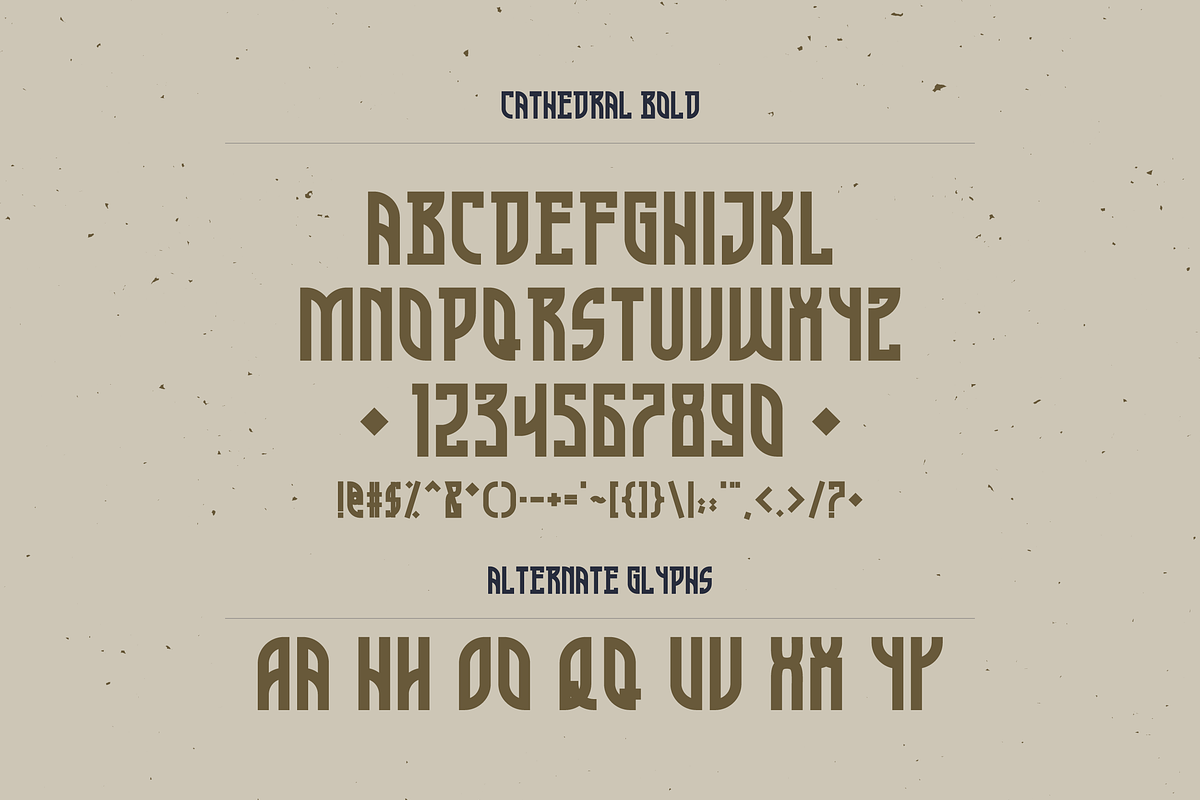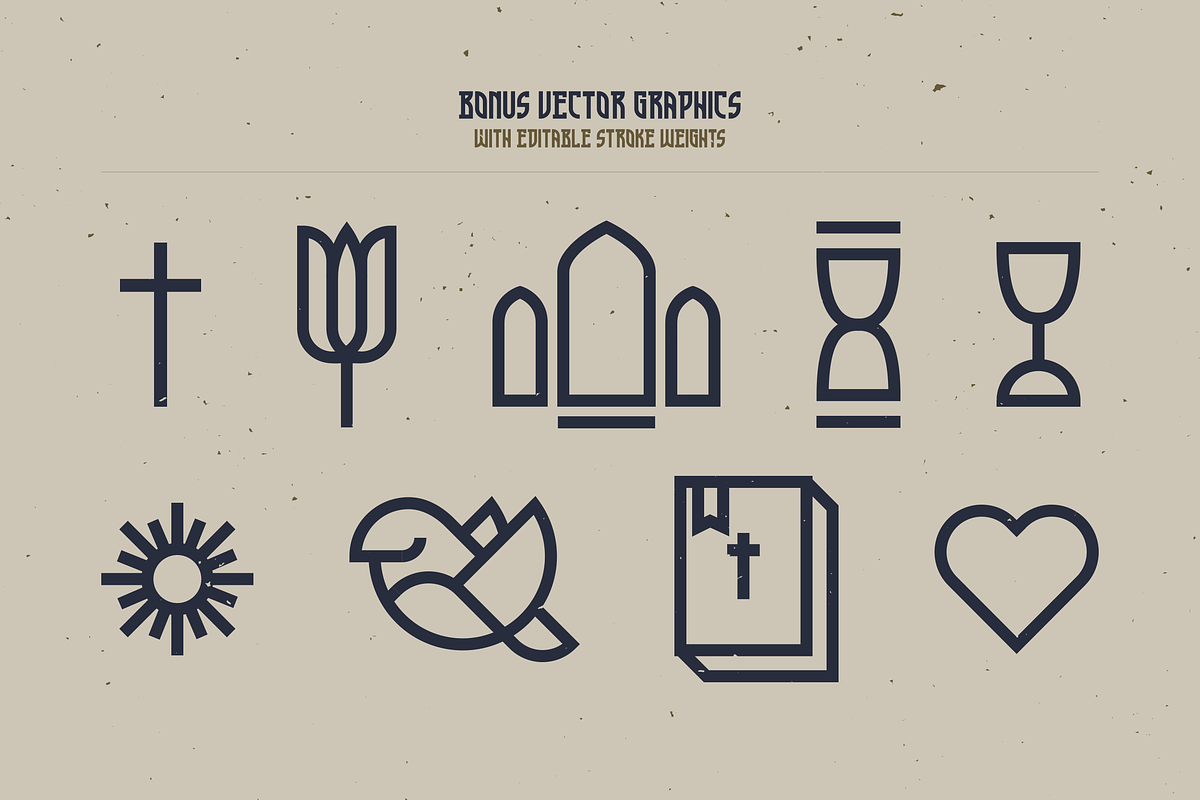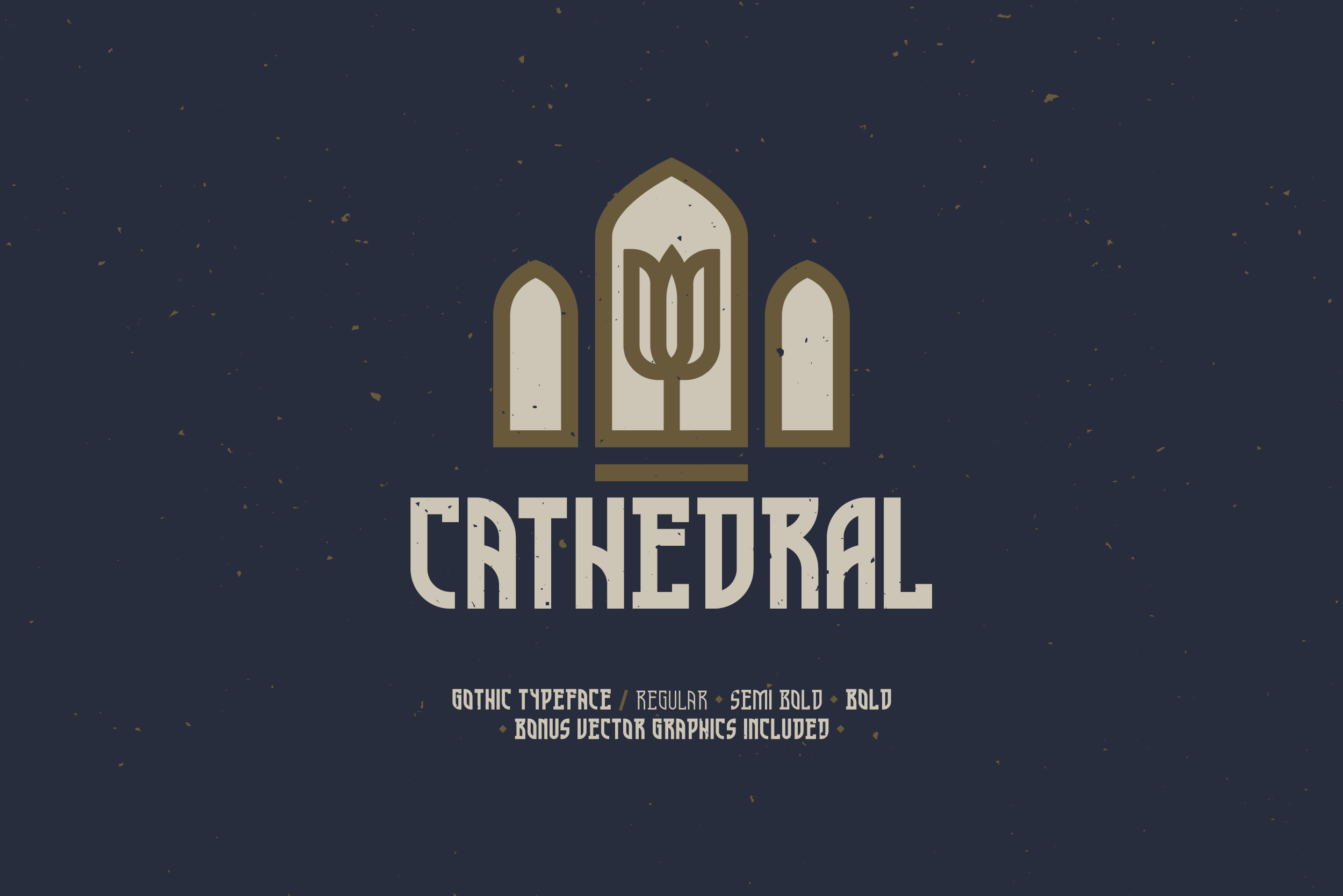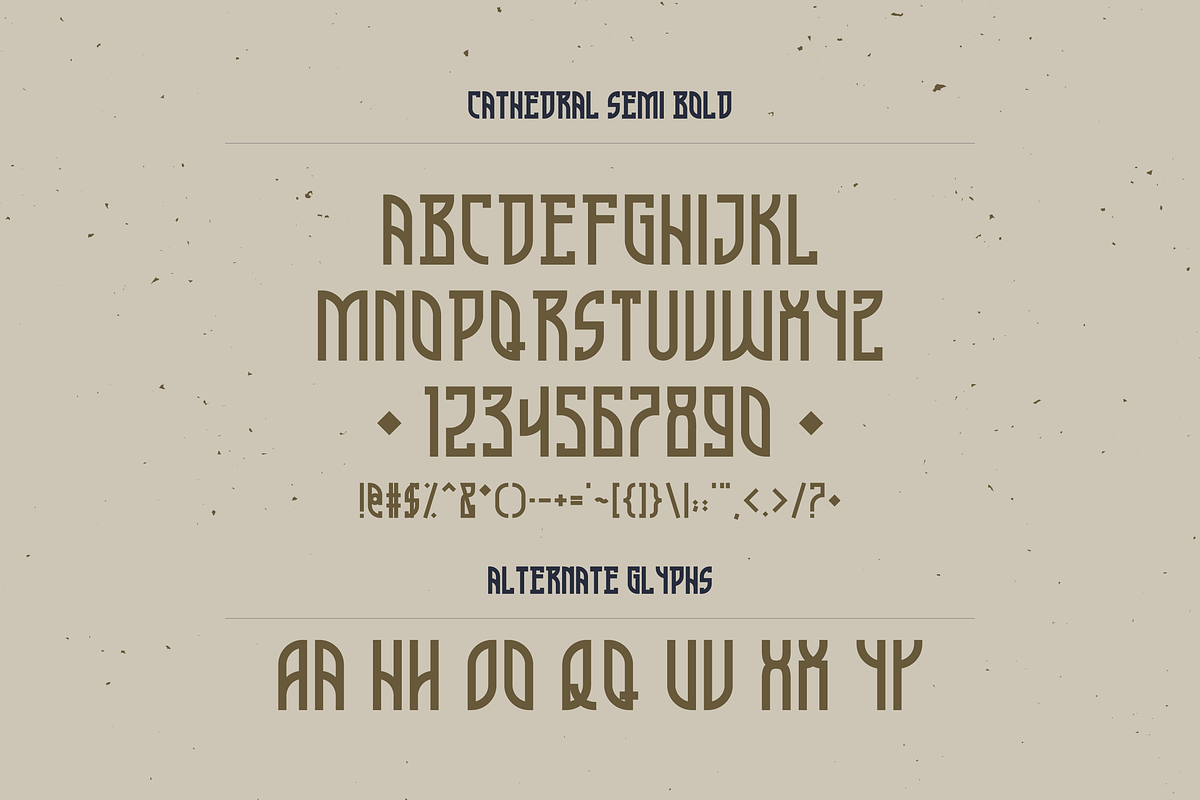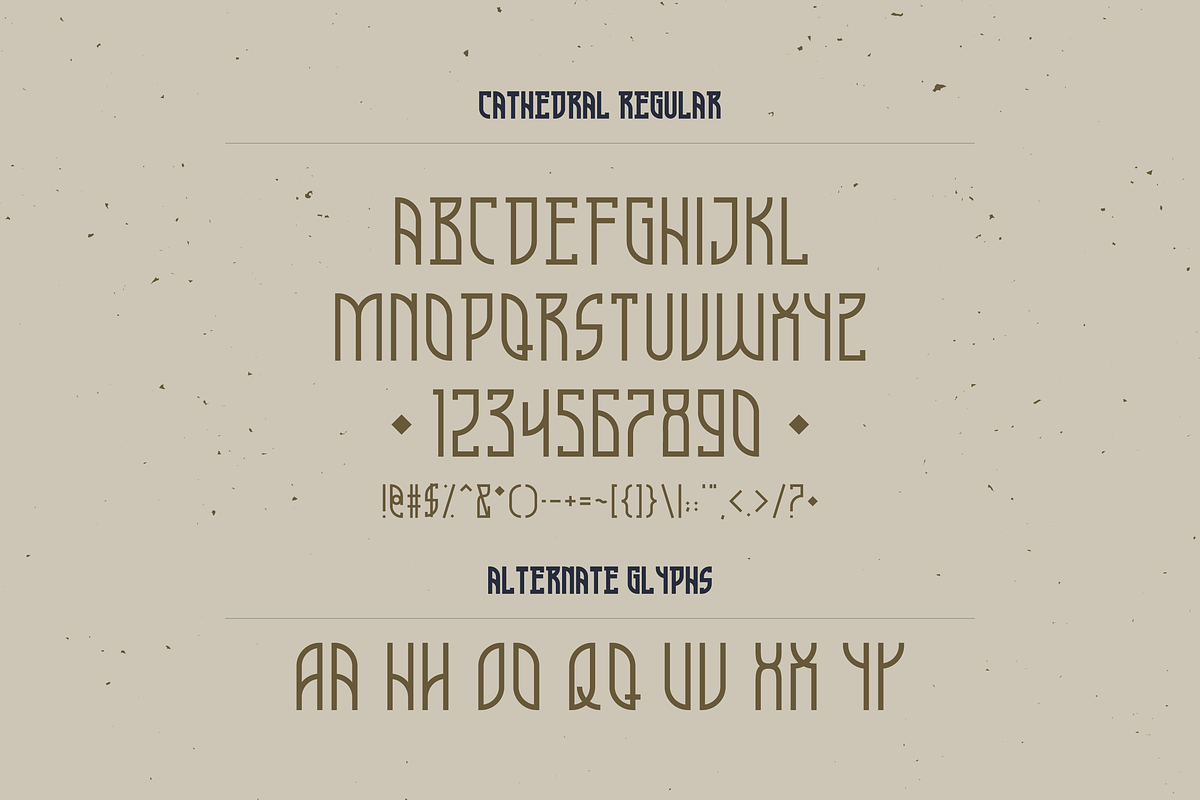
Cathedral — Display Typeface
Cathedral is a display typeface with regular, semi bold, and bold weights with alternate glyphs for select characters. This font comes with bonus vector graphics that accompany the font. The bonus vector graphics have editable stroke weights, so they can match each type weight, or any other need you have in mind.